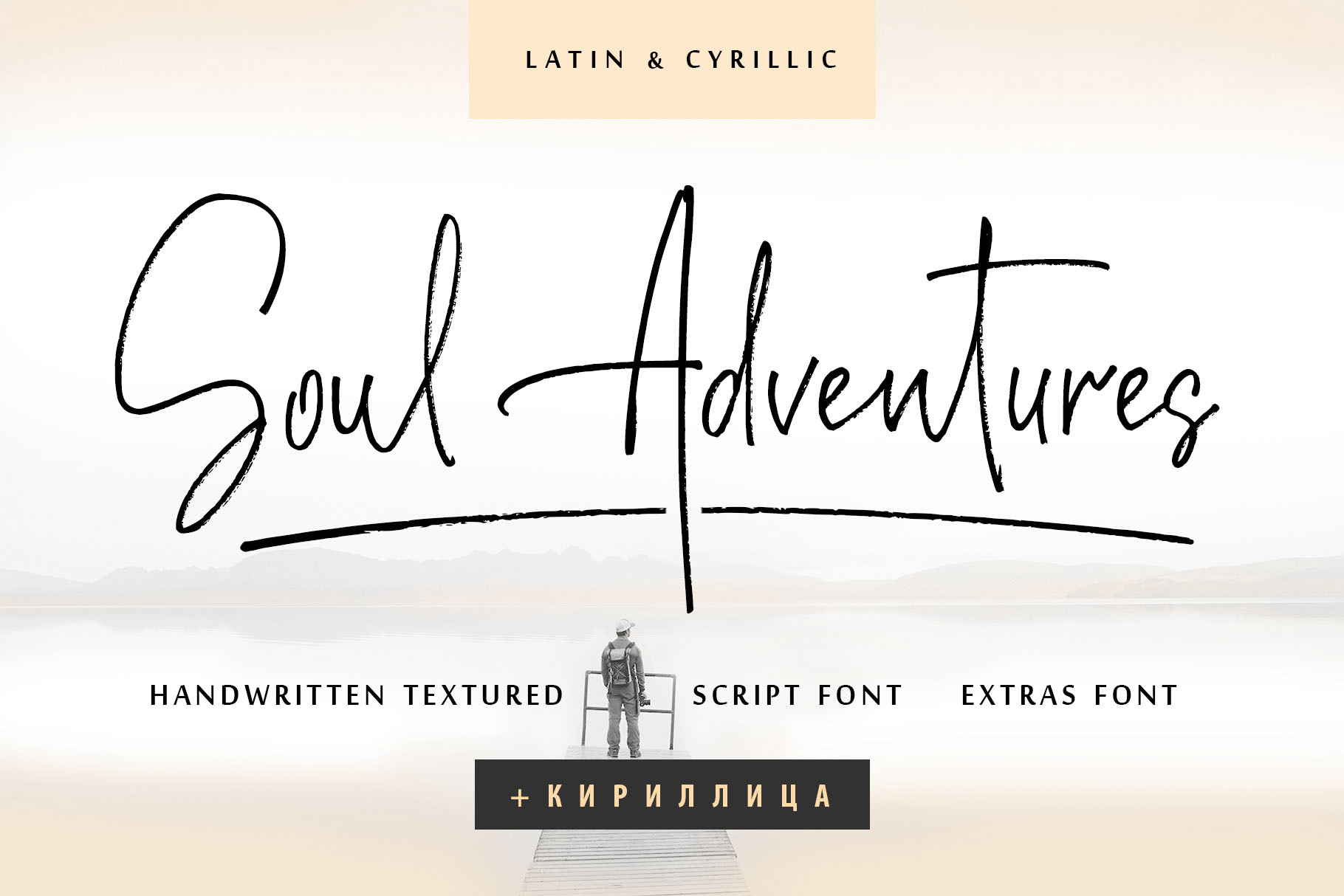
Soul Adventures Cyrillic Textured Script Font adds hand look style to all your design projects: logos, signatures, labels, packaging design, and blog headlines. Also, it will look great in mugs, cards, gorgeous typographic designs, wedding stationery, and much more. An additional font Soul Adventures Symbols can help you to make a lot of pretty designs and logos.
Soul Adventures script includes a full set of uppercase 2 sets of lowercase letters, numerals, a large range of punctuation, and 70 ligatures, giving a realistic hand-lettered style.
The Cyrillic part of the font contains the uppercase letters and lowercase letters and 20 ligatures, giving realistic hand-lettered style.
Soul Adventures_symbols is a font with over 36 unique, hand-drawn elements and swashes that can help to make your design more original. A different symbol is assigned to every uppercase or lowercase standard character plus numbers 0-9 so you do not need graphics software just simply type the letter you need.
Multilingual Support for 32 languages: Latin glyphs for Afrikaans, Albanian, Basque, Bosnian, Catalan, Danish, Dutch, English, Estonian, Faroese, Filipino, Finnish, French, Galician, Indonesian, Irish, Italian, Malay, Norwegian Bokmål, Portuguese, Slovenian, Spanish, Swahili, Swedish, Turkish, Welsh, Zulu.
And Cyrillic glyphs support for Russian, Belorussian, Bulgarian, Ukrainian, and Kazakh languages.